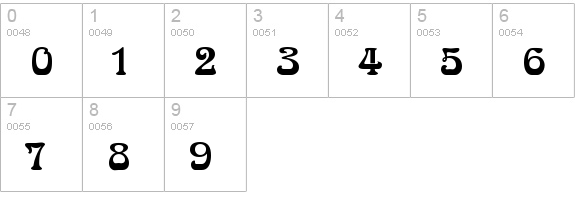
TR Arabia Font Details
TR Arabia font is a captivating and elegant typeface that brings a touch of sophistication to any project. With its unique blend of traditional and modern design elements, this font is perfect for creating eye-catching headlines, posters, invitations, and more. The intricate details and smooth curves of TR Arabia font make it a versatile choice for both print and digital applications. What sets TR Arabia font apart is not just its stunning aesthetics, but also the fact that it is available for free download at FontsMarket.com. This means that you can easily access this beautiful font and use it in your designs without any cost. Whether you're a professional designer or just someone looking to add a special touch to your personal projects, TR Arabia font is a fantastic choice that won't break the bank. Download it today and let your creativity shine with this exquisite typeface.